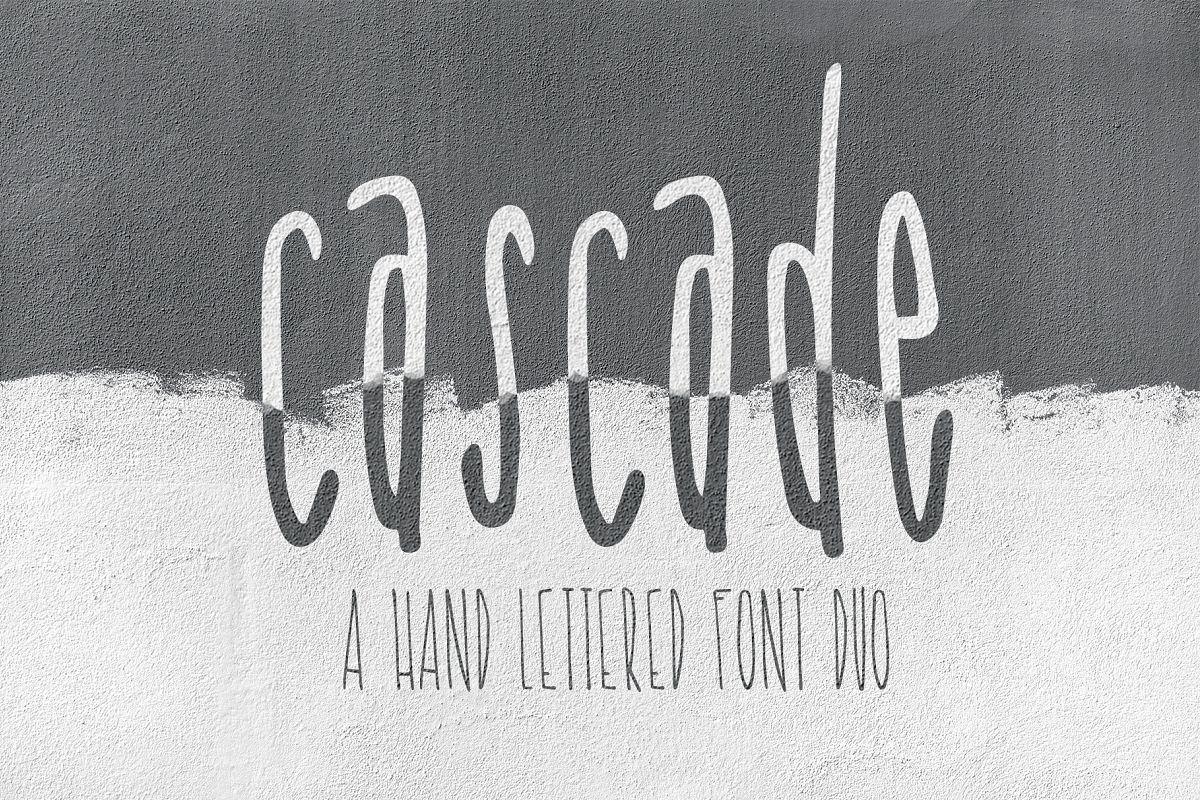
Cascade font is a fun and trendy handwritten font duo that will look great on your designs, logos, packaging, greeting cards, social media, prints, and more!
Use all CAPS for a tall and skinny font style! Use all lowercase for a charming handwritten look.